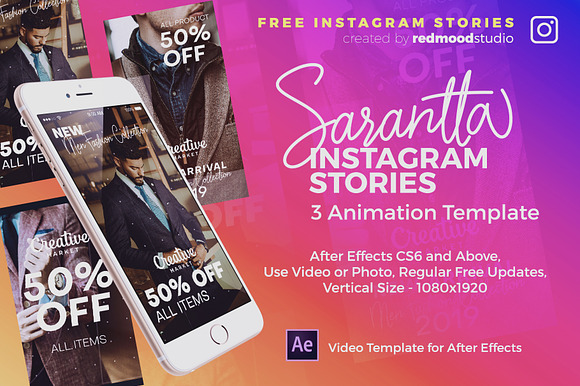
Sarantta Handwritten Script Font
Sarantta Handwritten Script Font by redmoodstudio is a font selected for branding, posters, packaging, typography.
Why Sarantta Handwritten Script Font is worth a look
Sarantta Handwritten Script Font by redmoodstudio fits naturally into Branding, posters, packaging, typography.